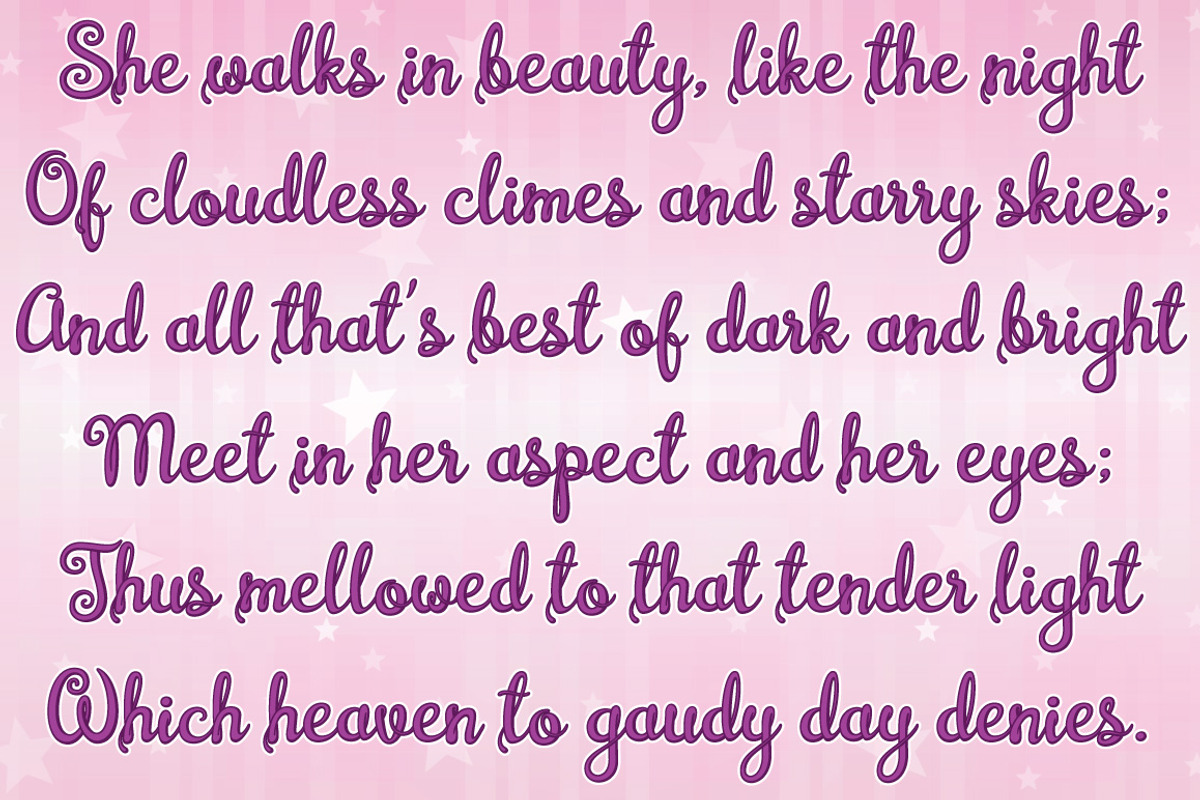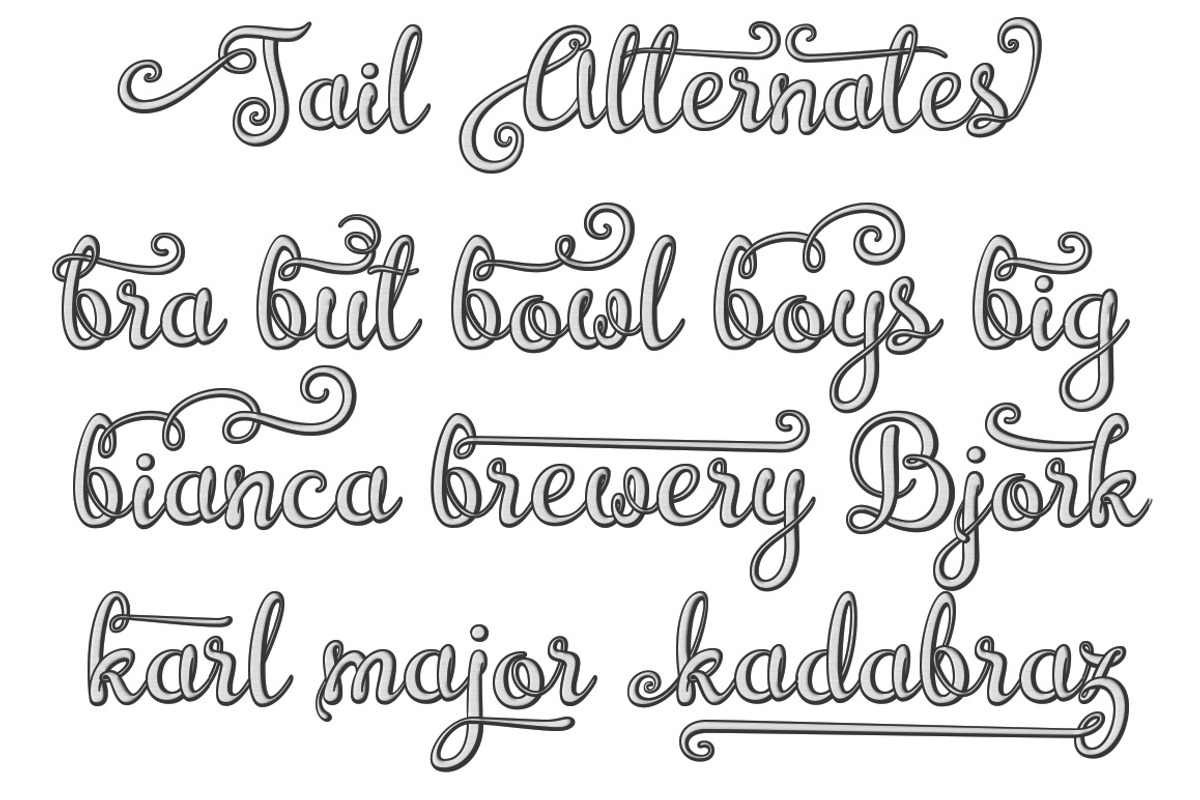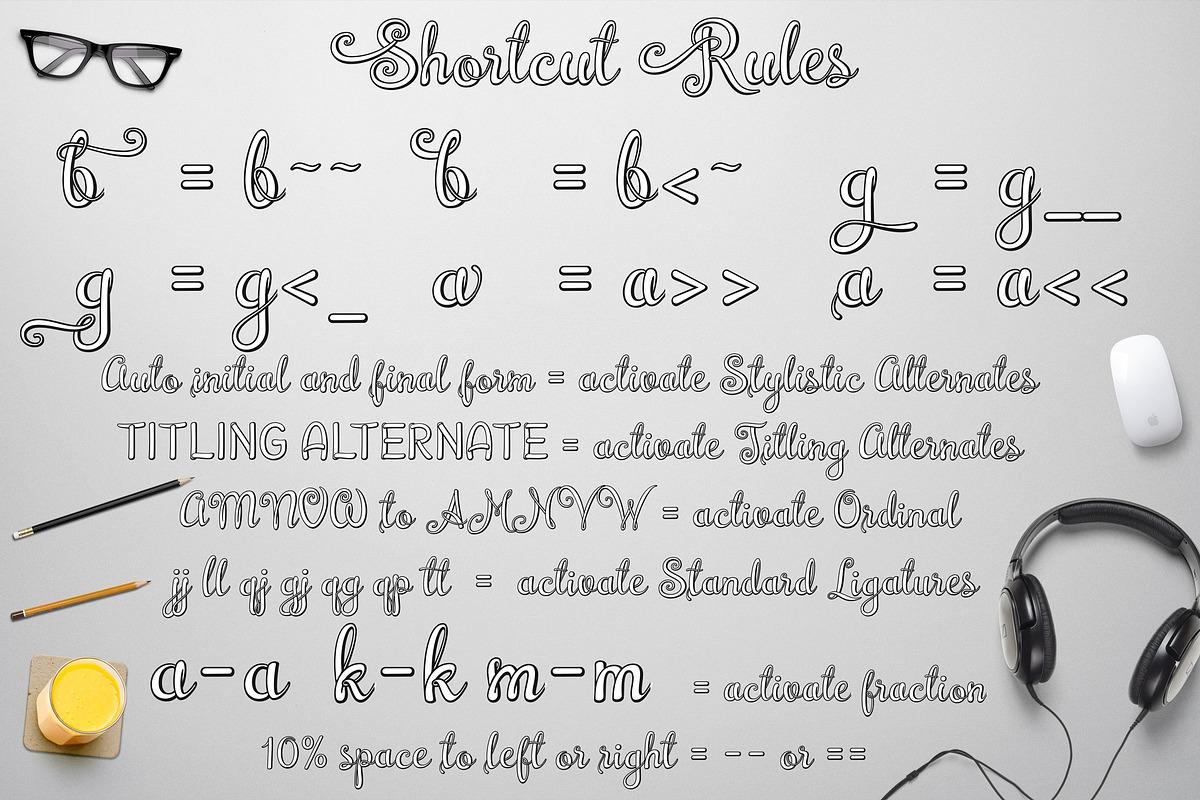
Brazilian Script
I am very like this 3D script style and was big challenge for me to convert this into font, and now I success make it happen. Congratulation for me :)
Featured:
- UPDATED - Now all alternate characters was appear on Alternate for Current Selection in Glyphs Panel.
- First 3D script into font.
- This font contain 1.000 glyphs and supported to all basic Latin character and eastern Europe language.
- 50 portable lowercase swash, it mean can create 50*26=1.300 alternate characters.
- To avoid of difficulty of use alternate character, I feature it with so many shortcuts to make access alternate character be so fast and easy! (Activate Contextual Alternates feature)
Please make sure you place fill version at bottom and stroke at the top.